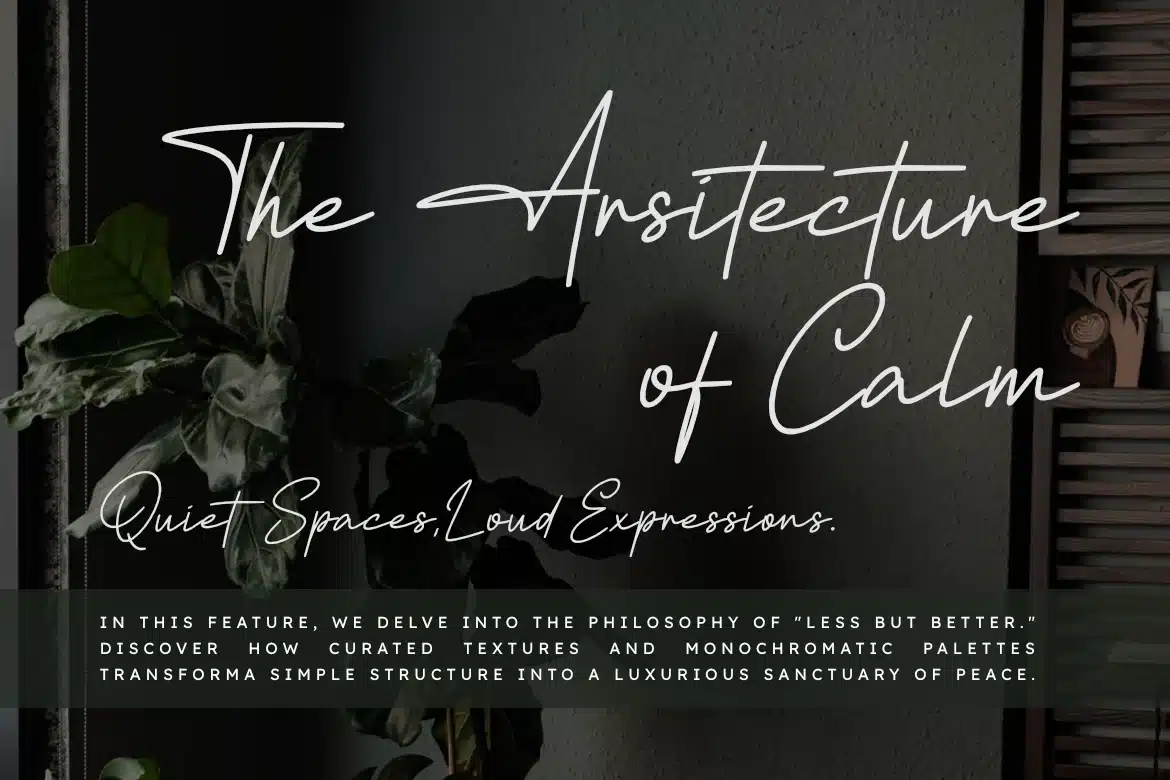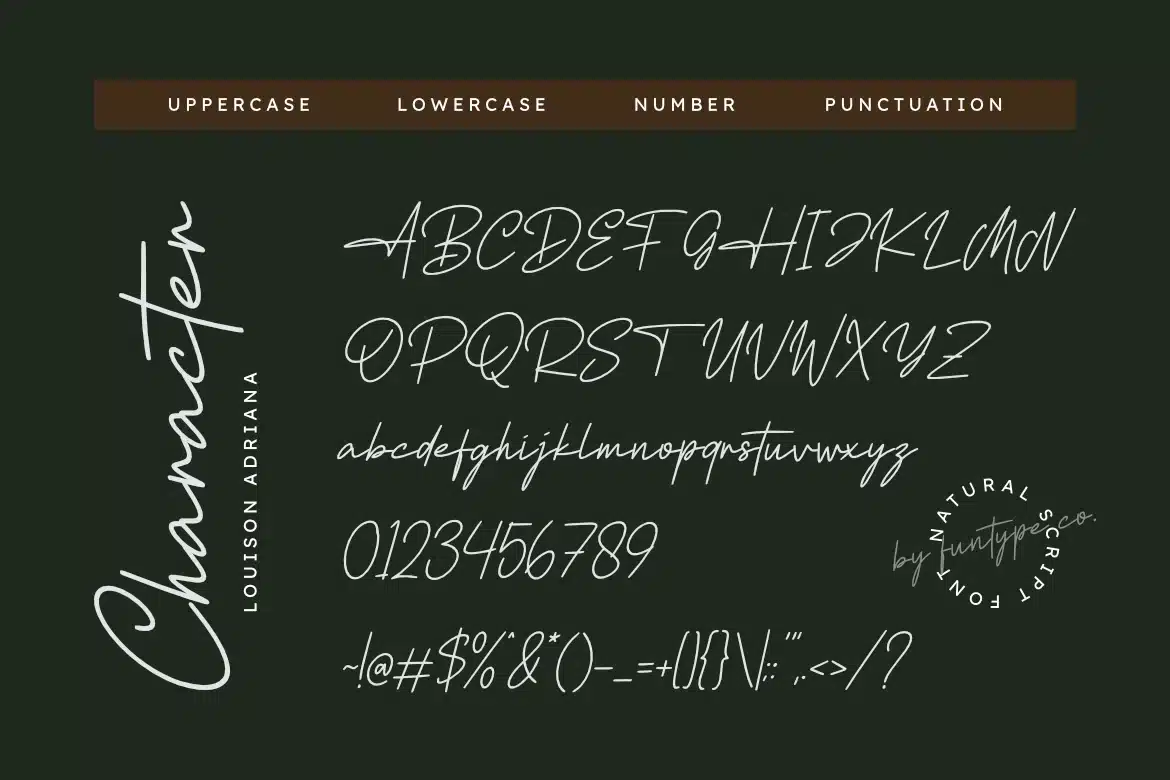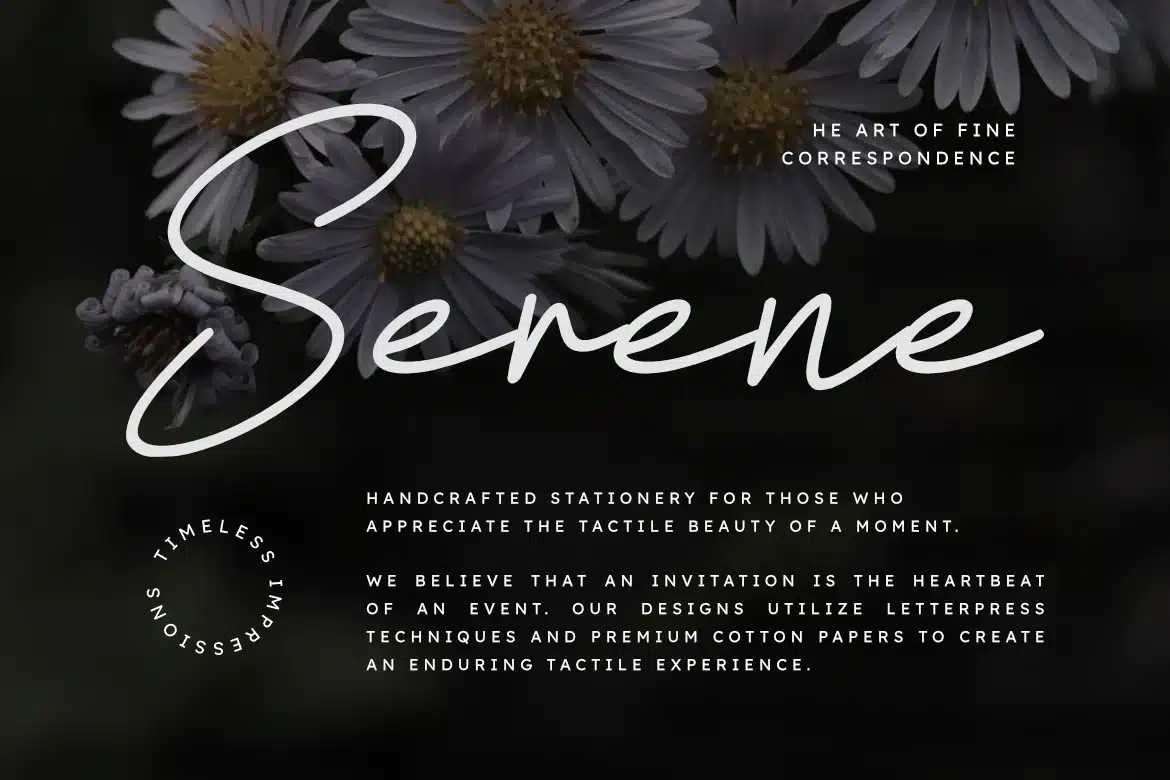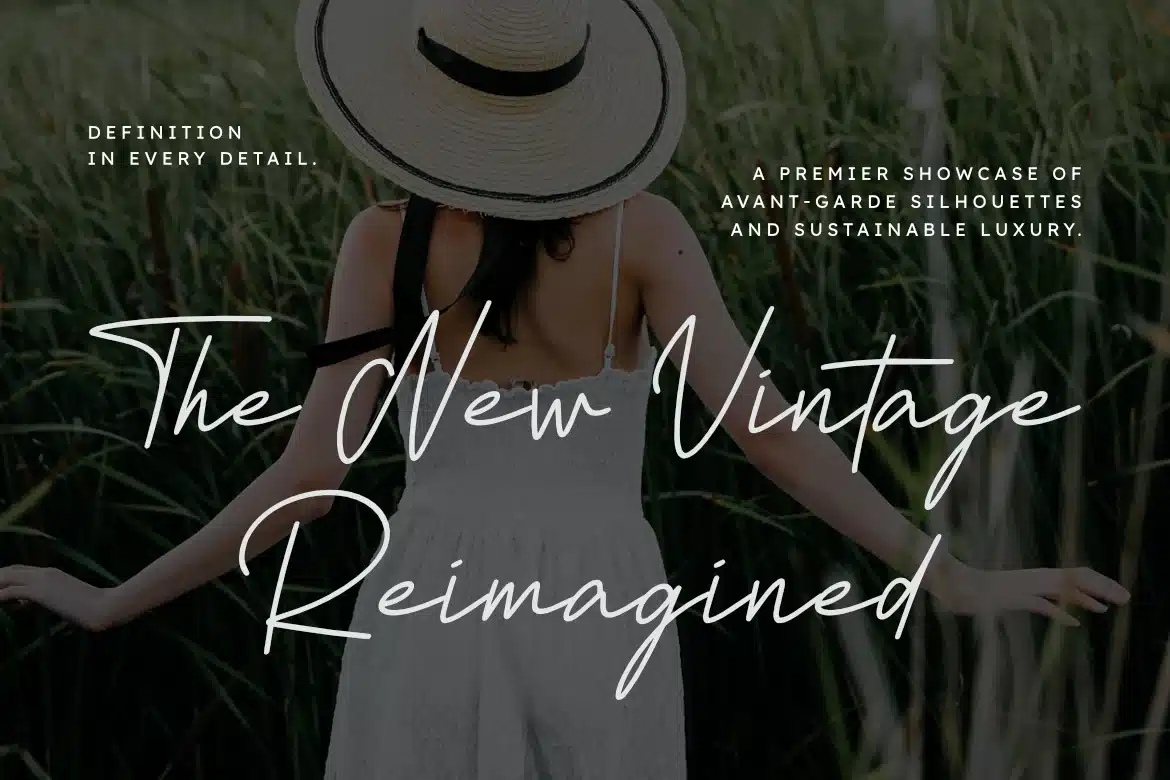
Louison Adriana – Natural Signature Script Font
Louison Adriana is a sophisticated and clean natural signature script font, thoughtfully designed to capture the essence of modern elegance and intimate storytelling. With its consistent monoline weight and organic, flowing strokes, Louison Adriana offers a bespoke aesthetic that brings a touch of effortless grace to any creative project.
This font is the ideal choice for designers looking to add a professional yet heartfelt touch to their work. Whether you are crafting delicate wedding stationery, a chic lifestyle logo, or elegant editorial layouts, Louison Adriana provides a seamless blend of contemporary flair and timeless simplicity.
Main Features:
- Clean and Natural Script Design: Optimized for a high-end, professional look.
- Authentic Signature Aesthetic: Smooth and organic flow for a personal feel.
- Refined Letterforms: Meticulously crafted for high legibility in branding.
- Elegant Monoline Structure: Beautifully balanced strokes for a romantic touch.
Best Used For:
Wedding invitations, photography watermarks, luxury boutique logos, elegant social media quotes, lifestyle magazine headers, and sophisticated product packaging.